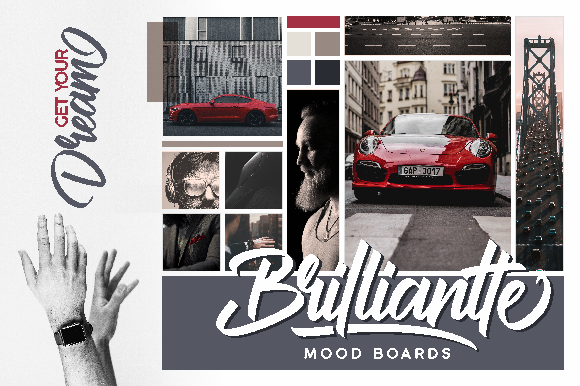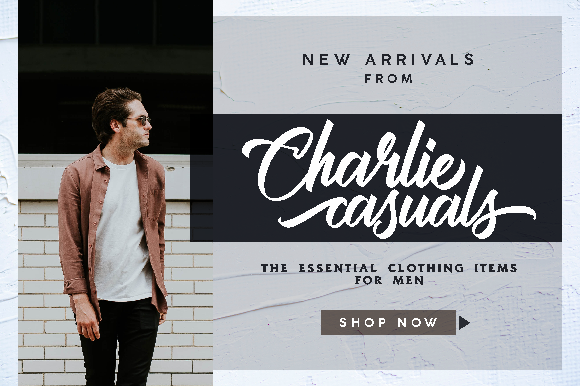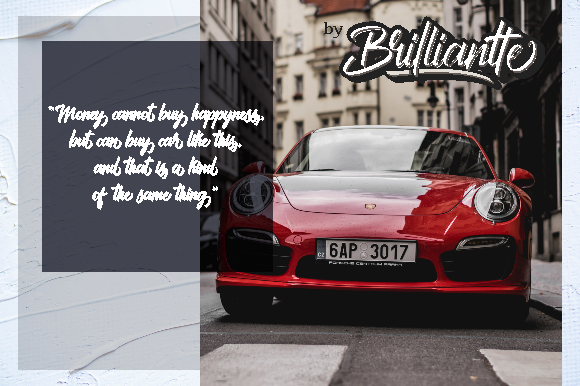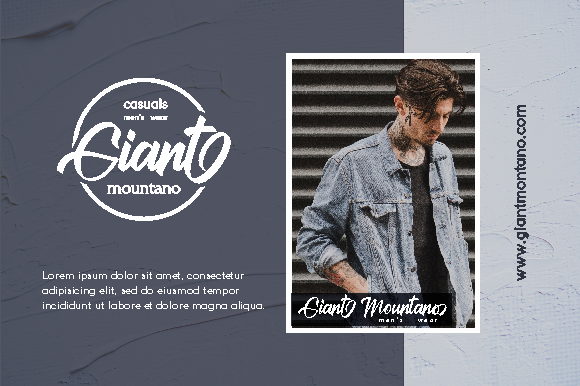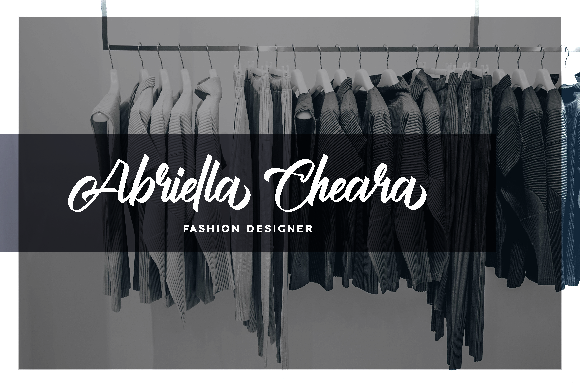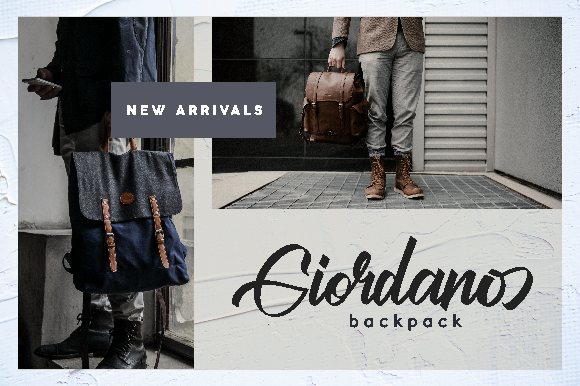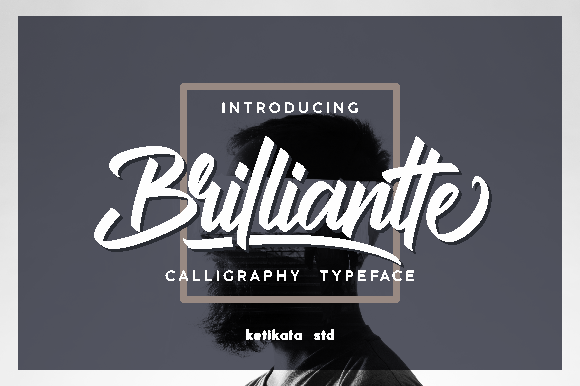
Introducing Brilliantte Script Font: Elevate Your Designs with Elegance and Flair
In the realm of typography, few fonts manage to capture the essence of elegance and modernity as effectively as the Brilliantte Script Font. This stunning calligraphy font is not just a typeface; it’s an artistic expression that brings a young and energetic vibe to any design project. Crafted meticulously from a sketch, Brilliantte stands out for its unique flair and versatility, making it an indispensable tool for designers and crafters aiming to leave a lasting impression.
The Birth of Brilliantte: A Labor of Love
The journey of Brilliantte began with a simple sketch, a blank canvas waiting to be filled with lines, curves, and character. The creator’s vision was to produce a font that wasn’t just visually appealing but also imbued with a sense of dynamism and freshness. Every letter in Brilliantte was carefully designed to contribute to the overall aesthetic and feel of the font, ensuring that it would be perfect for a wide array of applications.
Characteristics of Brilliantte Script Font
So, what makes Brilliantte stand out in the crowded world of script fonts? Here are a few key characteristics:
- Youthful and Energetic: Brilliantte exudes a sense of vibrancy and youthfulness, making it ideal for brands and projects that want to appear modern and lively.
- Versatility: Whether it’s for a logo, a quote, a business card, or a name tag, Brilliantte adapts seamlessly to various design needs.
- Elegance: Despite its modern feel, Brilliantte retains an air of elegance, suitable for more sophisticated and high-end projects.
- Unique Logo Creation: The distinctive style of Brilliantte lends itself perfectly to creating unique logos that stand out from the competition.
Applications of Brilliantte Script Font
The versatility of Brilliantte means it can be used in a multitude of design projects. Here are some ideas to get you started:
- Logos and Branding: Use Brilliantte to create a memorable logo that captures the essence of your brand.
- Business Cards: Add a touch of elegance and personality to your business cards with this striking font.
- Quotes and Posters: Bring out the best in your inspirational quotes and posters with the artistic flair of Brilliantte.
- Name Tags: Whether for events, conferences, or product labels, Brilliantte can add a professional yet personal touch.
Tips for Using Brilliantte Effectively
To make the most out of Brilliantte Script Font, consider the following tips:
- Pair it Wisely: Combine Brilliantte with complementary fonts to create visual interest and hierarchy in your designs.
- Adjust Size and Color: Experiment with different sizes and colors to emphasize certain words or phrases.
- Use it Sparingly: While Brilliantte is eye-catching, using it sparingly can make it more impactful.
Brilliantte Script Font is more than just a typeface; it’s a design statement. Its unique blend of youthfulness, elegance, and versatility makes it an invaluable asset for designers and crafters looking to elevate their projects. Whether you’re creating a brand identity, crafting a beautiful quote, or designing a business card, Brilliantte offers the perfect combination of style and substance. Embrace Brilliantte in your next design venture and witness how this striking calligraphy font transforms your ideas into stunning visual realities.